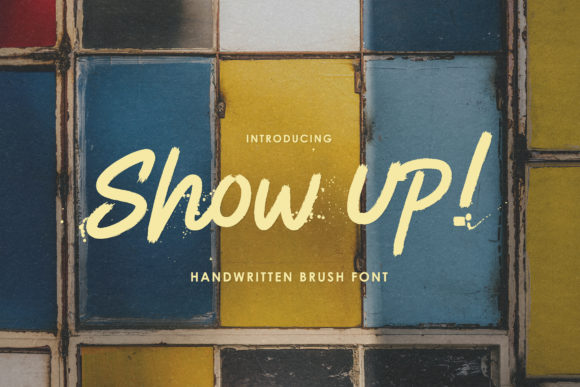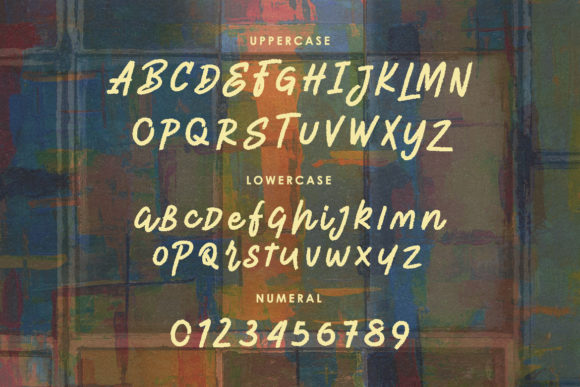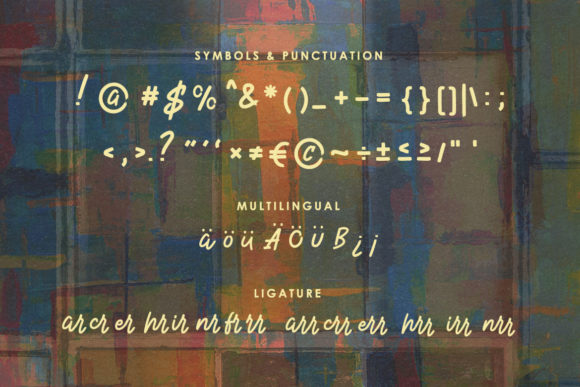
About Show Up! Font
Show Up! is a brushed handwritten font, incredibly neat and versatile. No matter the topic, this font will be an incredibly asset to your fonts’ library, as it has the potential to elevate any creation.